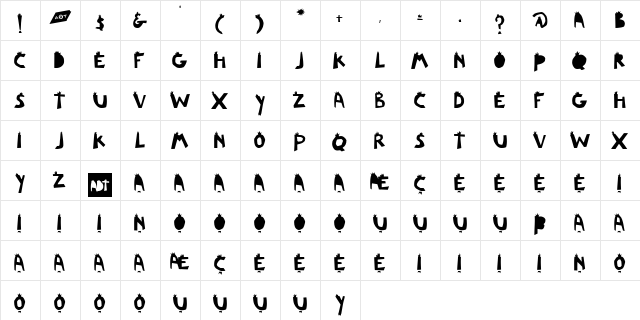
LeJol Medium Font Preview
LeJol Medium
Design Context for LeJol Typeface
LeJol is a composed and adaptable typeface that performs quietly and consistently across a wide range of design contexts.